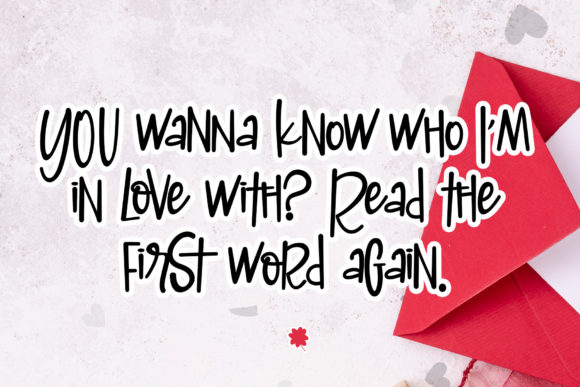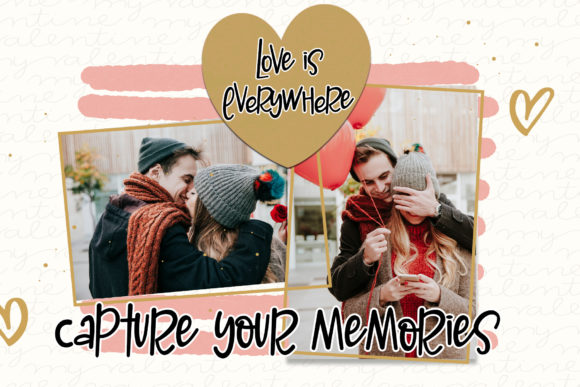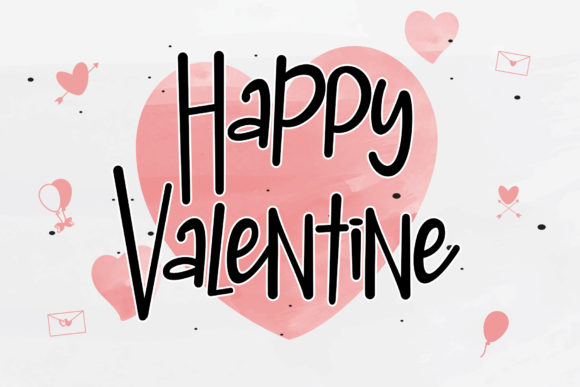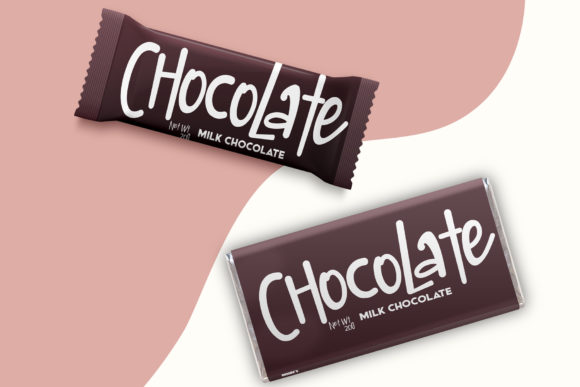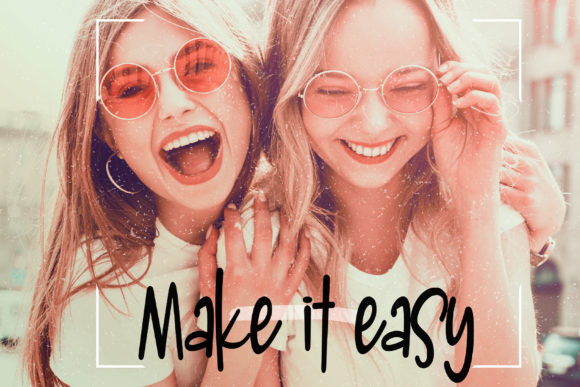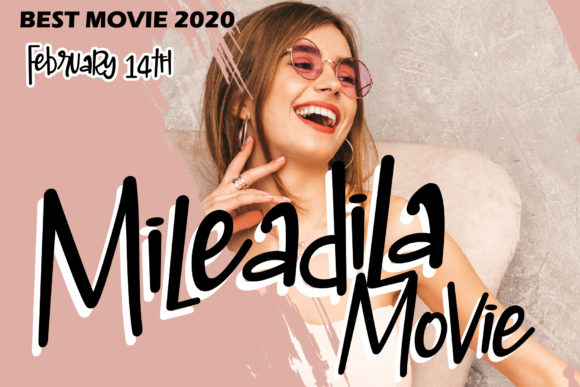
Introduction to Mileadila Font
Mileadila is a sweet and simple display font that’s perfect for adding a romantic charm to your next Valentine’s day project.
Get inspired by its unique look .
Key Features of Mileadila Font
Why Choose Mileadila Font?
Mileadila Font offers exceptional quality and versatility, making it a valuable addition to your design toolkit. Whether you’re creating for personal projects or commercial use, Mileadila Font delivers professional results.